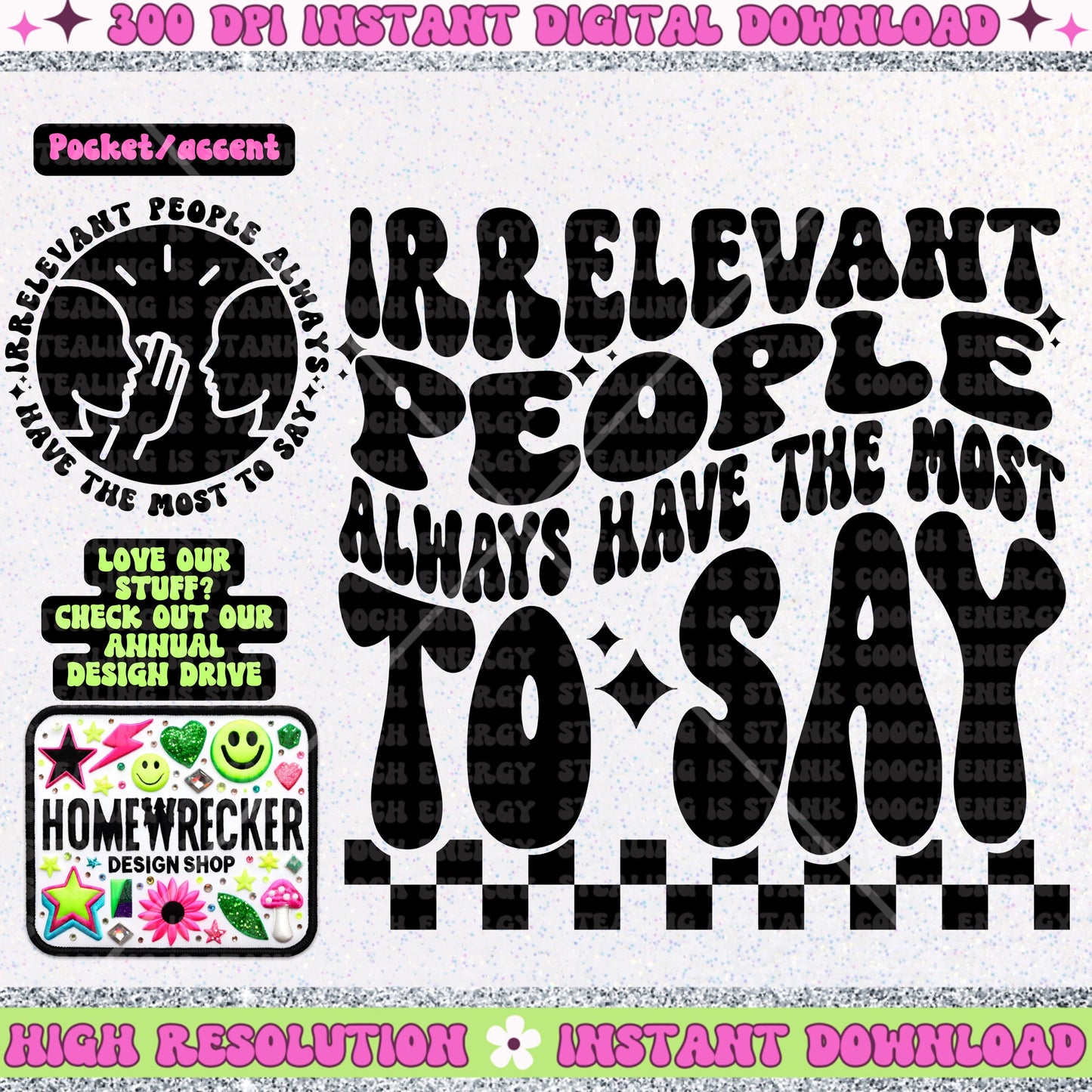
Png wavy font snarky digital design tshirt png front and back tshirt png sarcastic funny png irrelevant people png tshirt sublimation png
Png wavy font snarky digital design tshirt png front and back tshirt png sarcastic funny png single color design for tshirt sublimation png